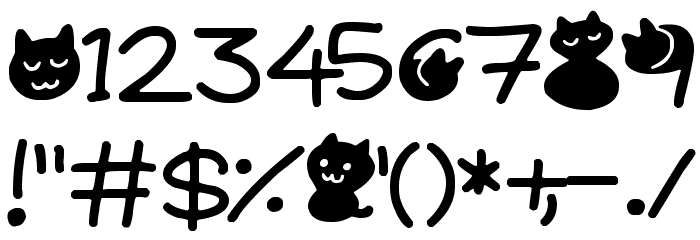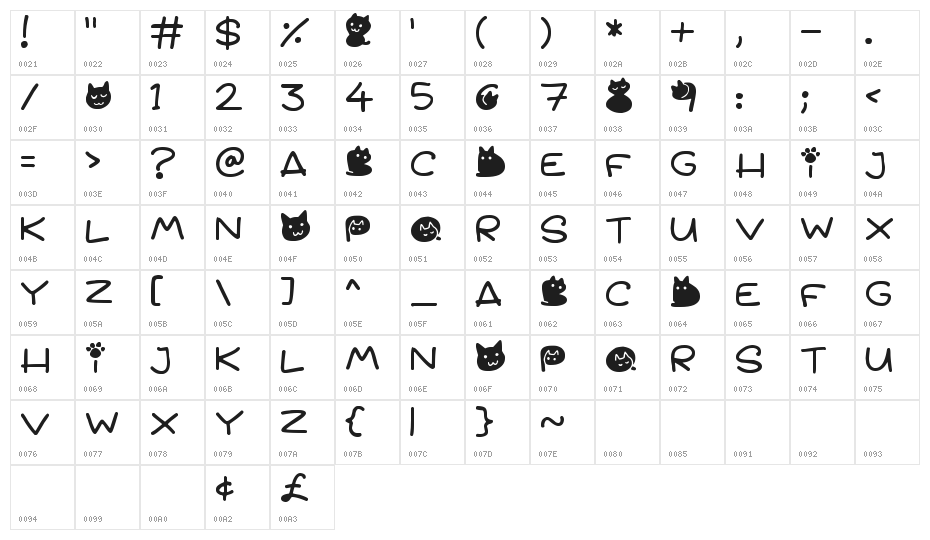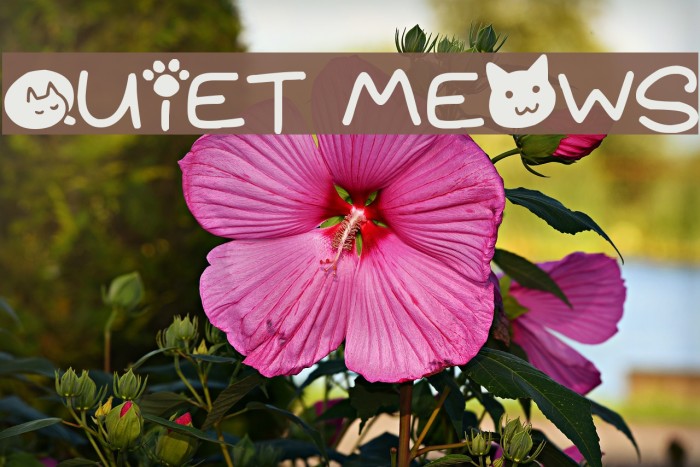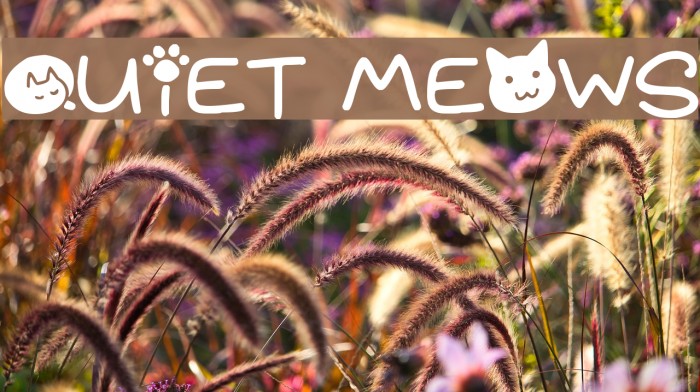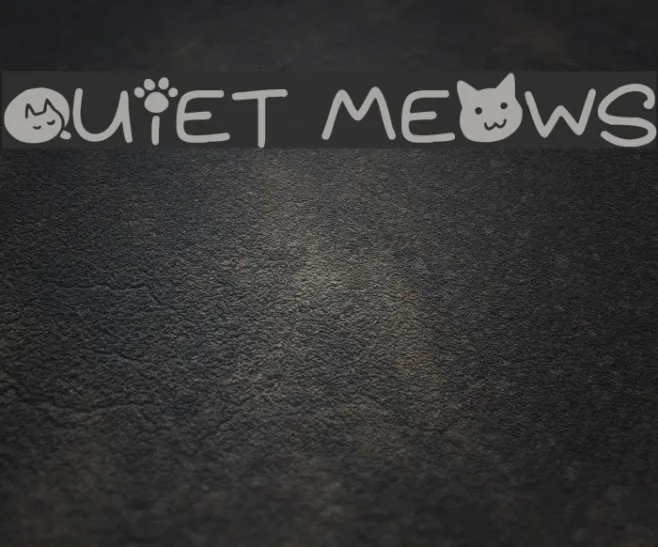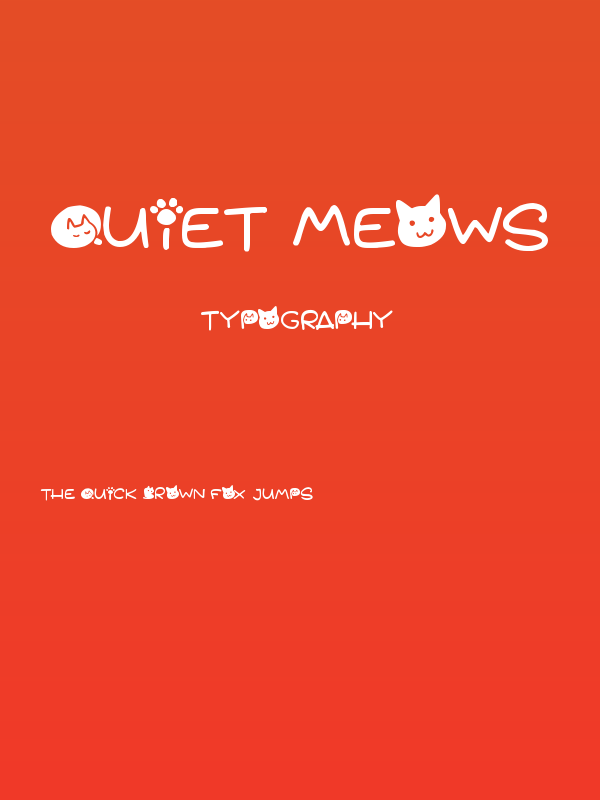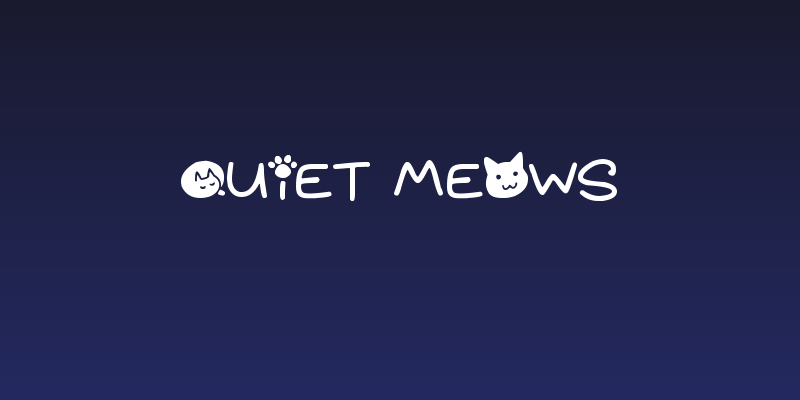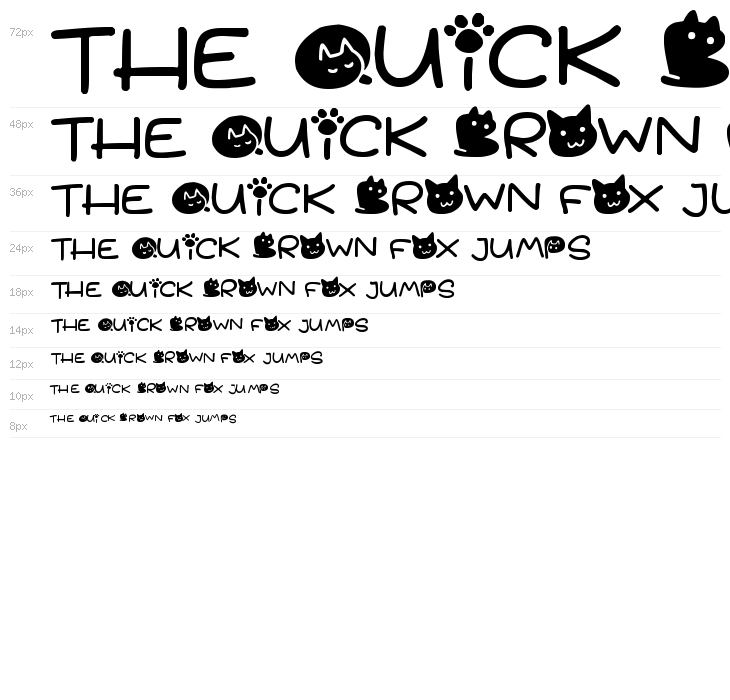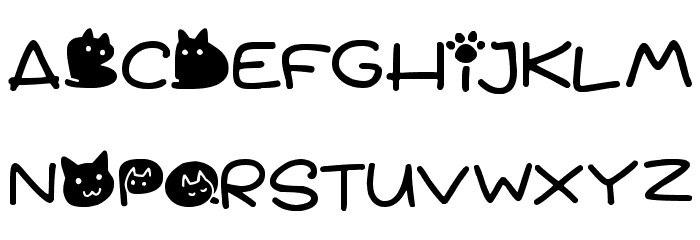
Quiet Meows Font
Quiet Meows Description
This playful and whimsical font features charming cat-themed elements integrated into each character. The uppercase letters incorporate cat faces and paws, adding a unique and fun touch. The lowercase letters maintain a consistent style, with smooth curves and a friendly appearance. Numbers and special characters also include delightful cat motifs, making the font perfect for creative projects. The overall design is bold and eye-catching, with a medium contrast in stroke thickness. This font is ideal for children's books, pet-related branding, or any project seeking a lighthearted and engaging aesthetic.
Overall StylePlayful, Whimsical